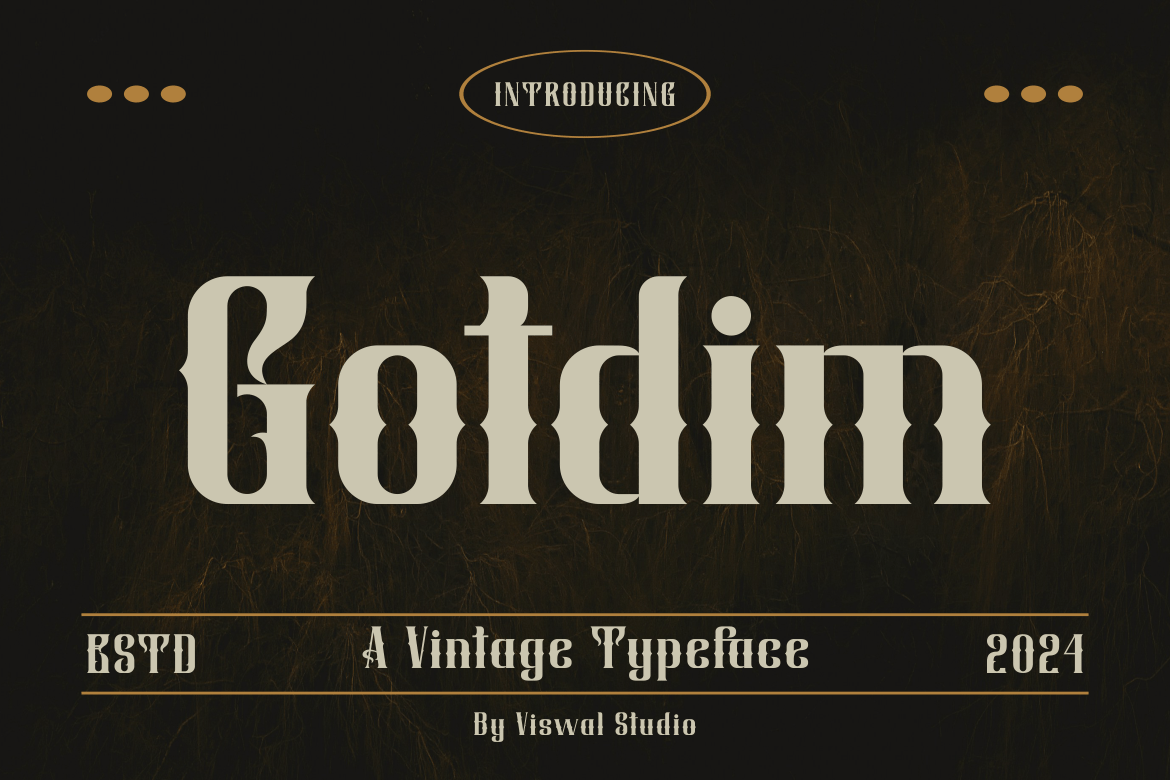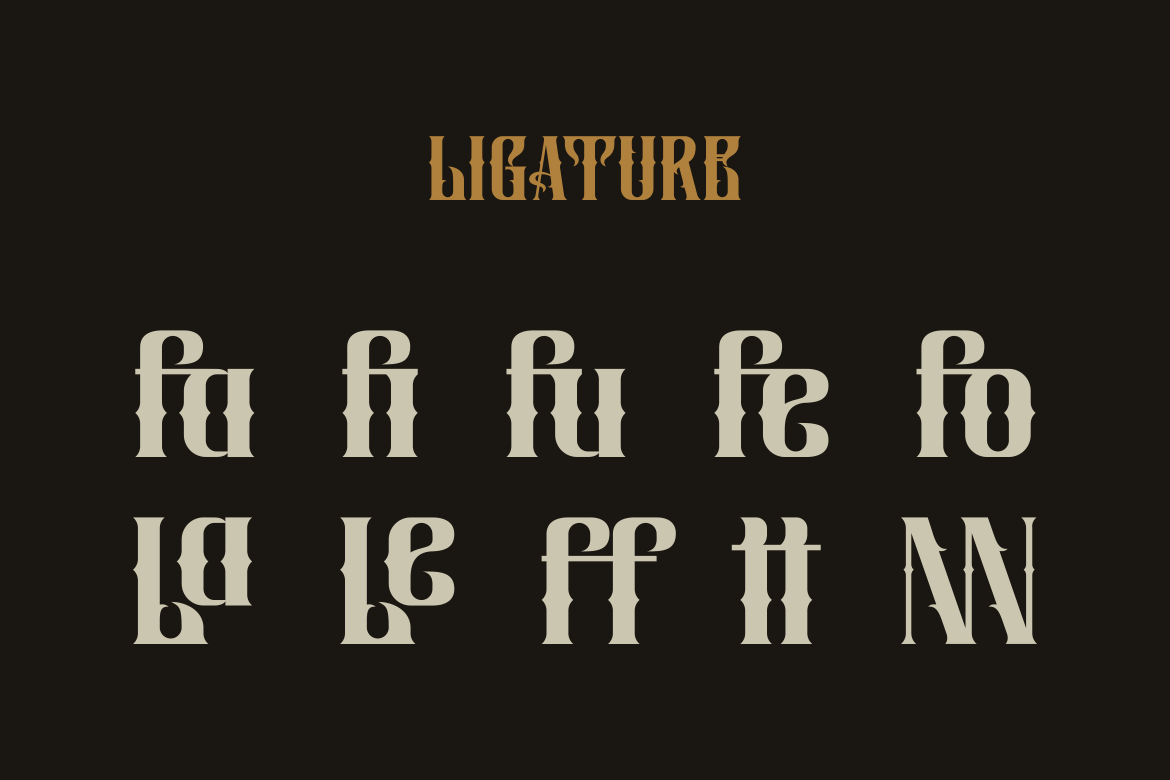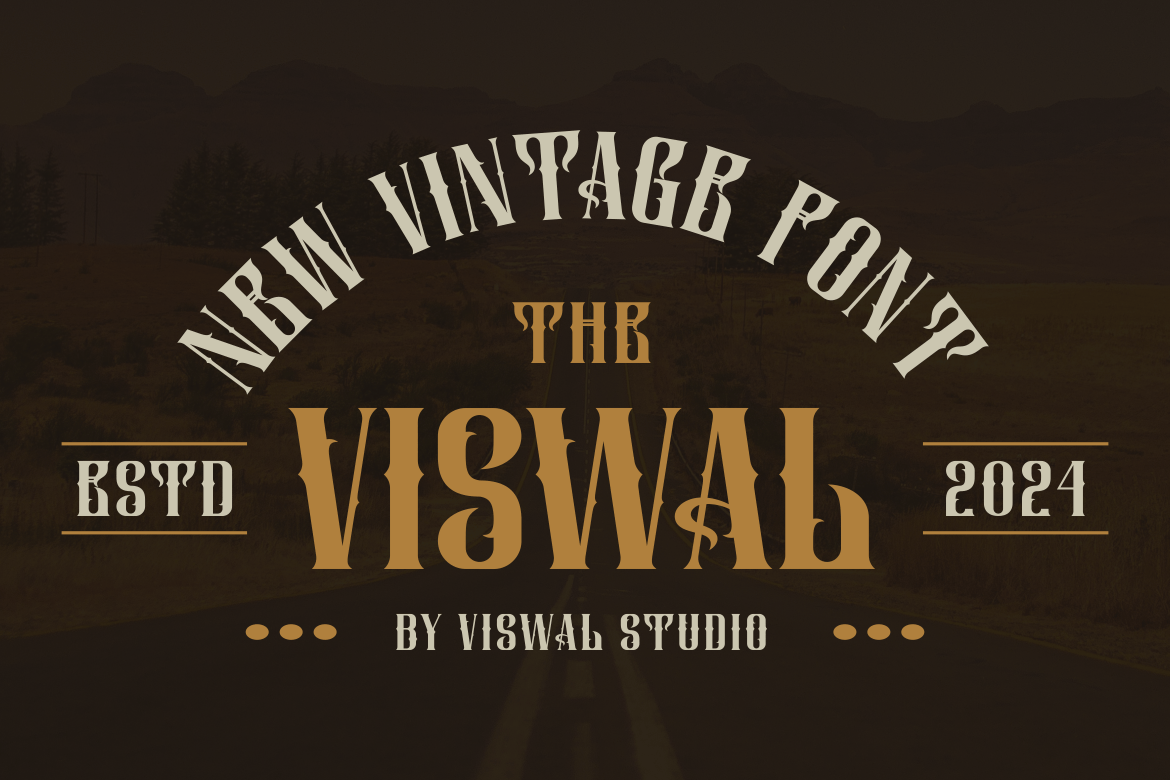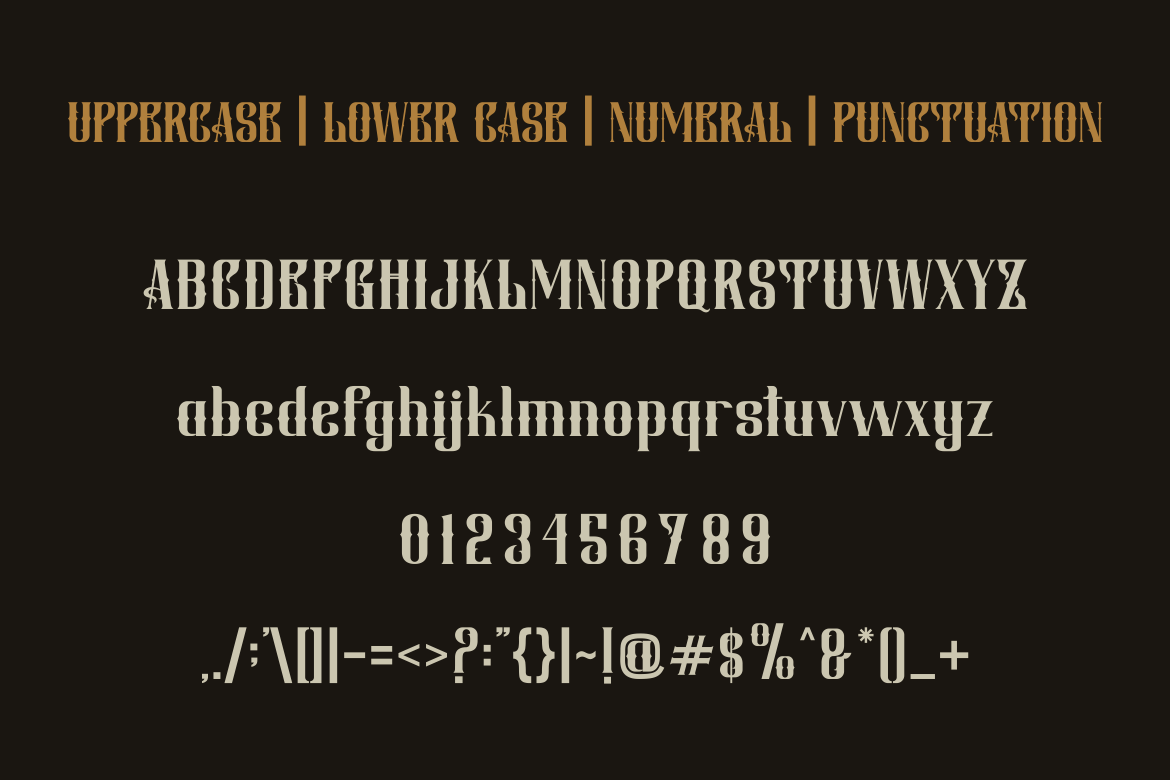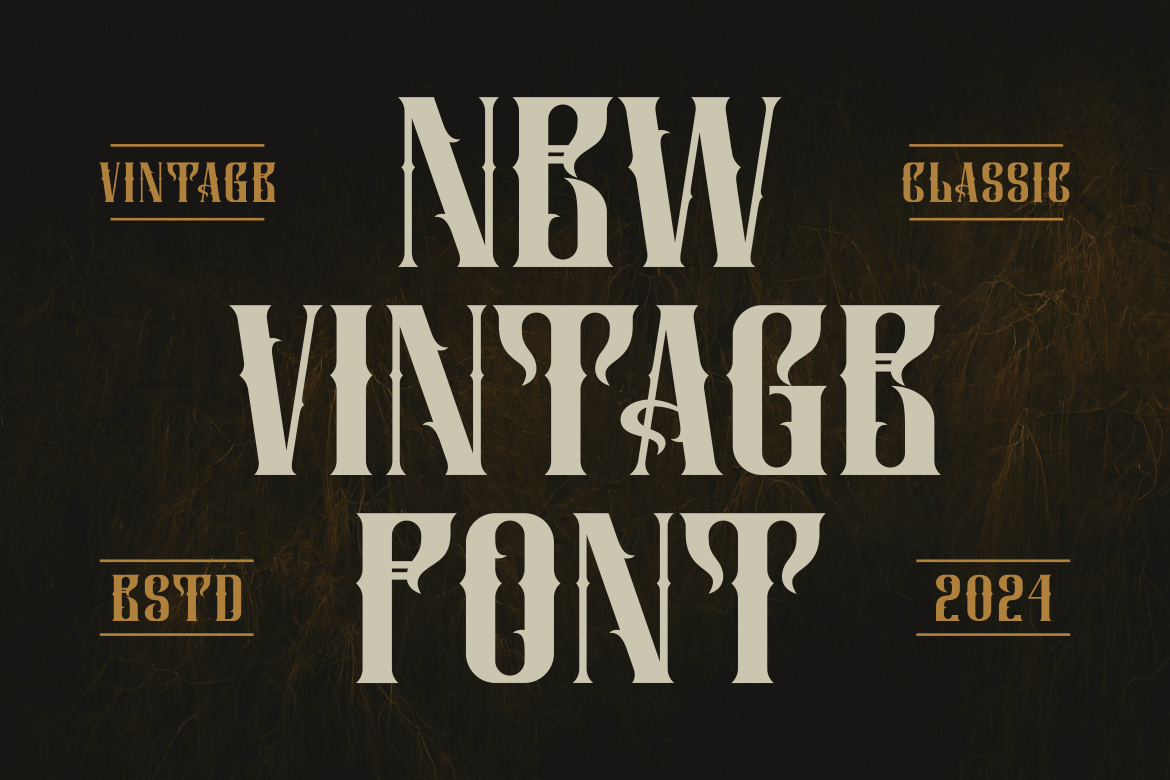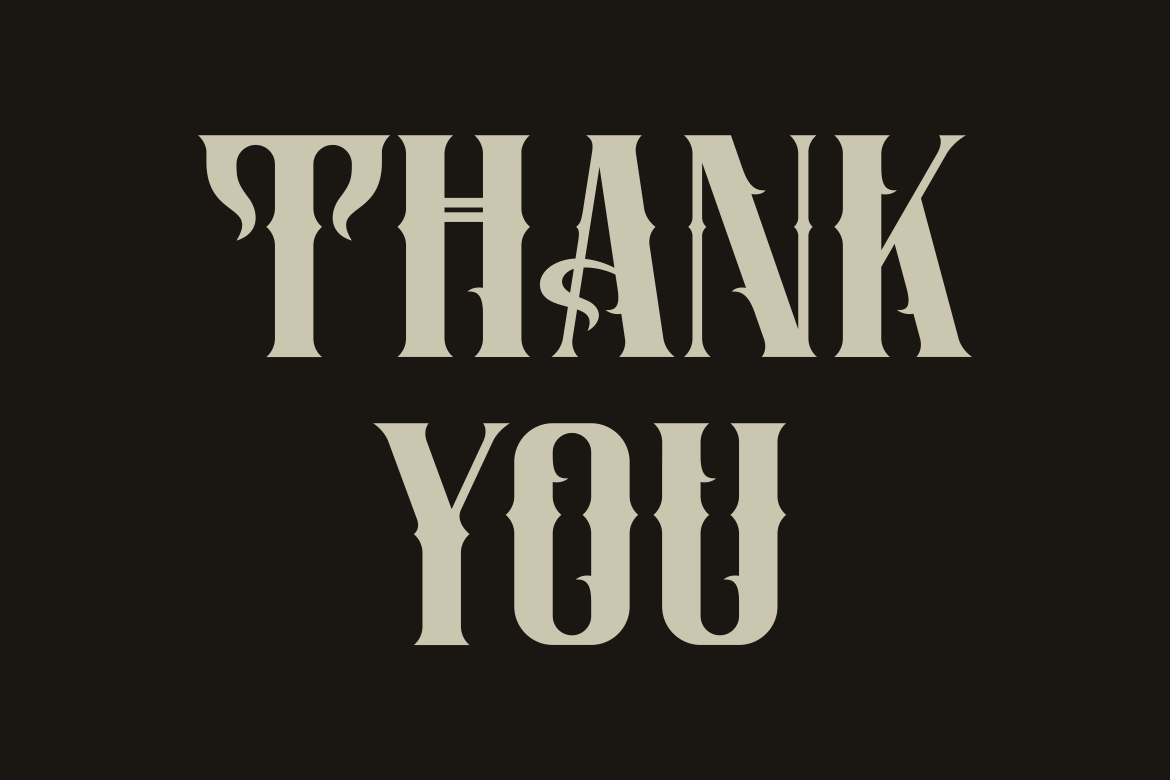
Gotdim – Vintage Font
Presenting Gotdim – Font is suitable for badge, labels, logo, branding, magazine, poster and etc. Our fonts have Uppercase & Lowercase, Numeral & Punctuation, Multilingual support and Opentype Features. For Amazing designs you can mix with other fonts as a complement.